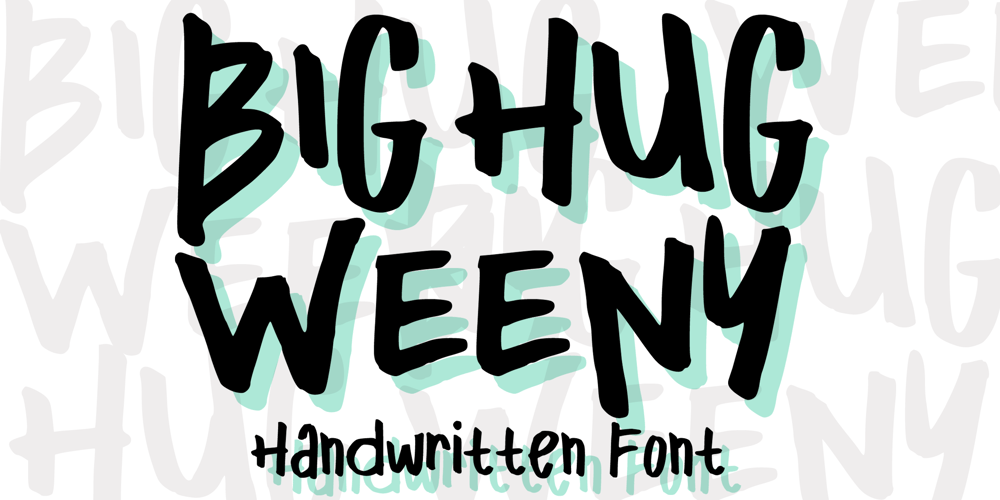
Big Hug Weeny
Big Hug Weeny font
Big Hug Weeny Font Family was designed by Gabriel Valentinus and published by Mvmet. Big Hug Weeny contains 1 styles and family package options. Big Hug Weeny is a playful contemporary handwritten font, inspired by fun good old days cartoon in the late 80s and 90s. It will elevate a wide range of design projects to the highest level. You can use this font for many design ideas such as stickers, t-shirt designs, amazing logo designs, magazine or book covers, comics, cartoon drawings, and many more. This font will add a super cool touch to your designs!